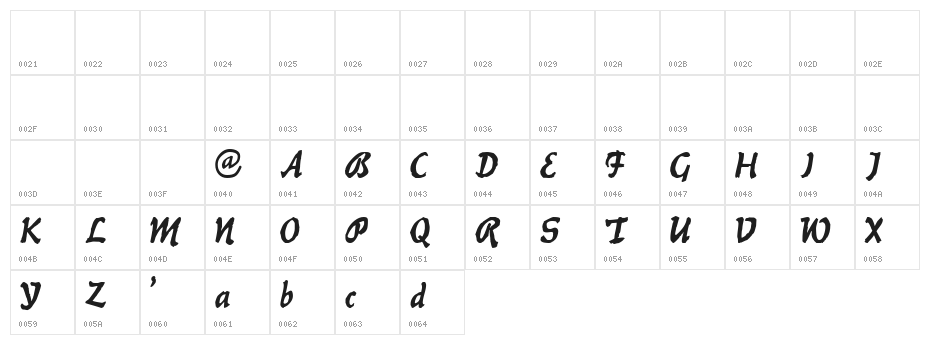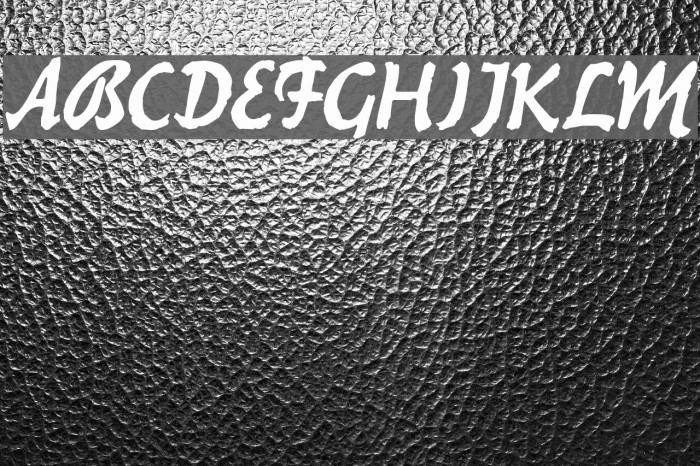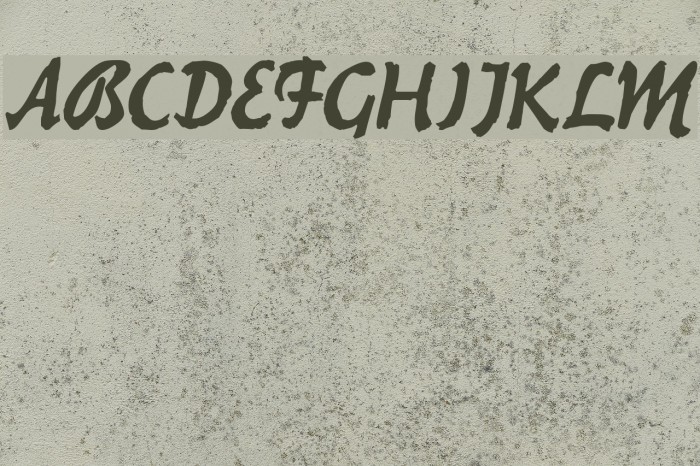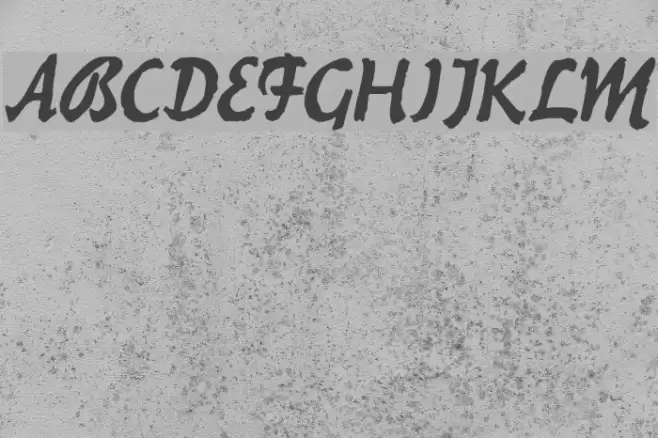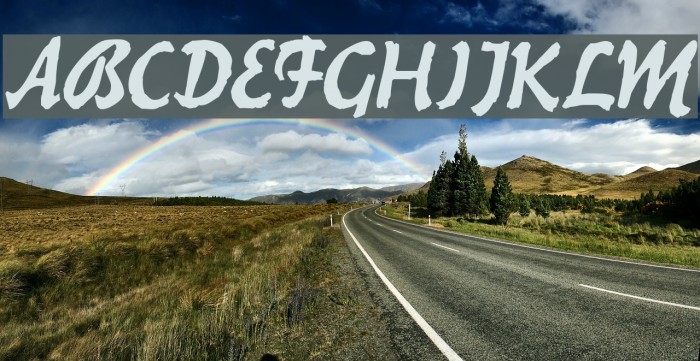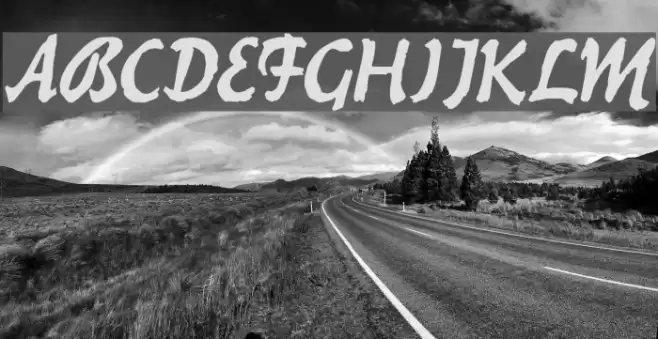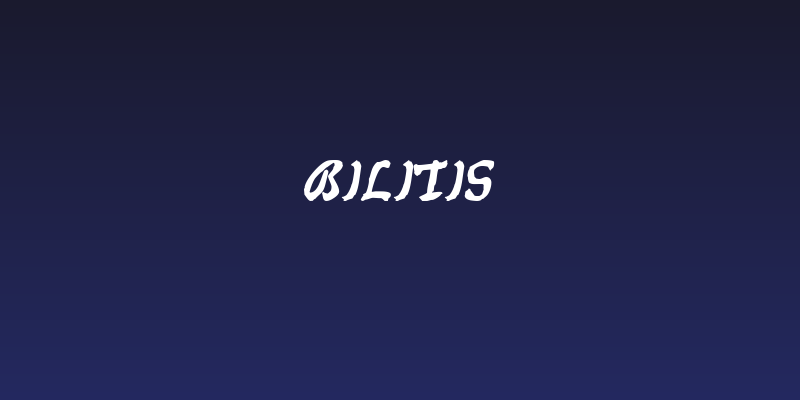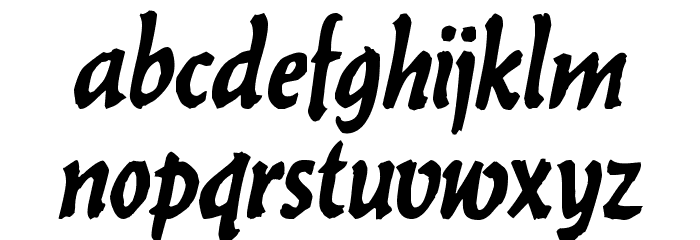
Bilitis Font
Bilitis Description
This font features a bold and dynamic script style, reminiscent of traditional calligraphy with a modern twist. The characters are fluid and connected, giving a sense of movement and elegance. The uppercase letters are slightly more angular, providing a strong presence, while the lowercase letters maintain a smooth and flowing appearance. The strokes are thick, with moderate contrast, enhancing readability while retaining an artistic flair. This font is suitable for projects that require a touch of sophistication and creativity, such as invitations, branding, and decorative headlines.
| Proposed Projects | Ideal for wedding invitations, branding materials, decorative headlines, and artistic designs. |